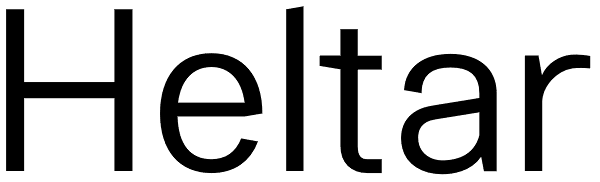
Heltar
A modern neo-grotesque typeface. Having grown up in Sheffield and been completely immersed in the work of The Designers Republic I became very drawn to their treatment of Helvetica, especially the close tracking of the letter space. This visual...